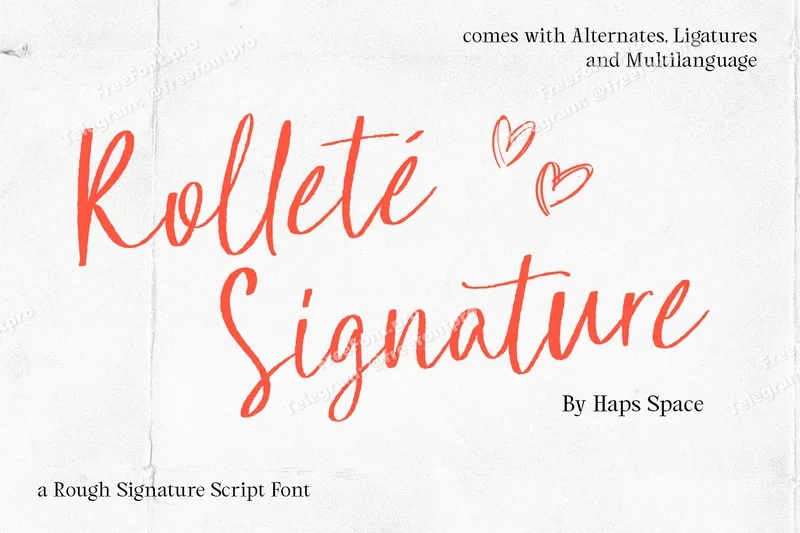
Rollete Signature
Rollete Signature is an authentic and charming Rough Signature Script Font that captures the natural, fluid look of handwriting. Its spontaneous strokes and slightly textured edges give it a warm, personal, and effortlessly elegant feel.
This font is perfect for projects requiring a personal touch, such as: wedding invitations, branding, photography watermarks, greeting cards, quote designs, and product packaging.